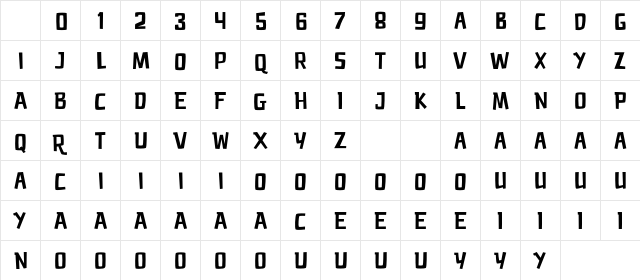
Complete PAMPARAY Demo Regular glyph index. Displaying only characters natively supported by PAMPARAY Demo Regular font.
PAMPARAY Demo is a composed and adaptable typeface that performs quietly and consistently across a wide range of design contexts.